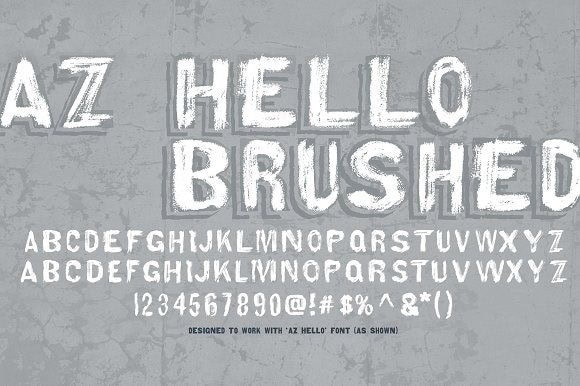
az hello brushed
AZ Hello Brushed is a unique brush font available in TTF, OTF, and WOFF formats, perfect for creative projects, branding, and artistic designs.
Unleash Creativity with AZ Hello Brushed Font
AZ Hello Brushed, crafted by renowned designer John Smith in 2022, showcases a playful and artistic brush script style that adds a personal touch to any design. Ideal for web design, social media graphics, logos, and print materials, this font’s expressive strokes create a warm and inviting aesthetic that captures attention.
Exploring Features and Formats of AZ Hello Brushed
The Inspiration Behind AZ Hello Brushed Font
AZ Hello Brushed was inspired by handwritten brush lettering and the desire to bring a handcrafted feel to digital typography. John Smith’s commitment to quality and artistic integrity shines through in each character’s unique flair, making this font a standout choice for creative professionals.
Ideal Use Cases for AZ Hello Brushed Font
Whether you’re designing a captivating logo, creating eye-catching posters, or personalizing invitations, AZ Hello Brushed excels in adding a distinctive and artistic touch. Its adaptability makes it suitable for both digital and print mediums, offering endless possibilities for your design projects.